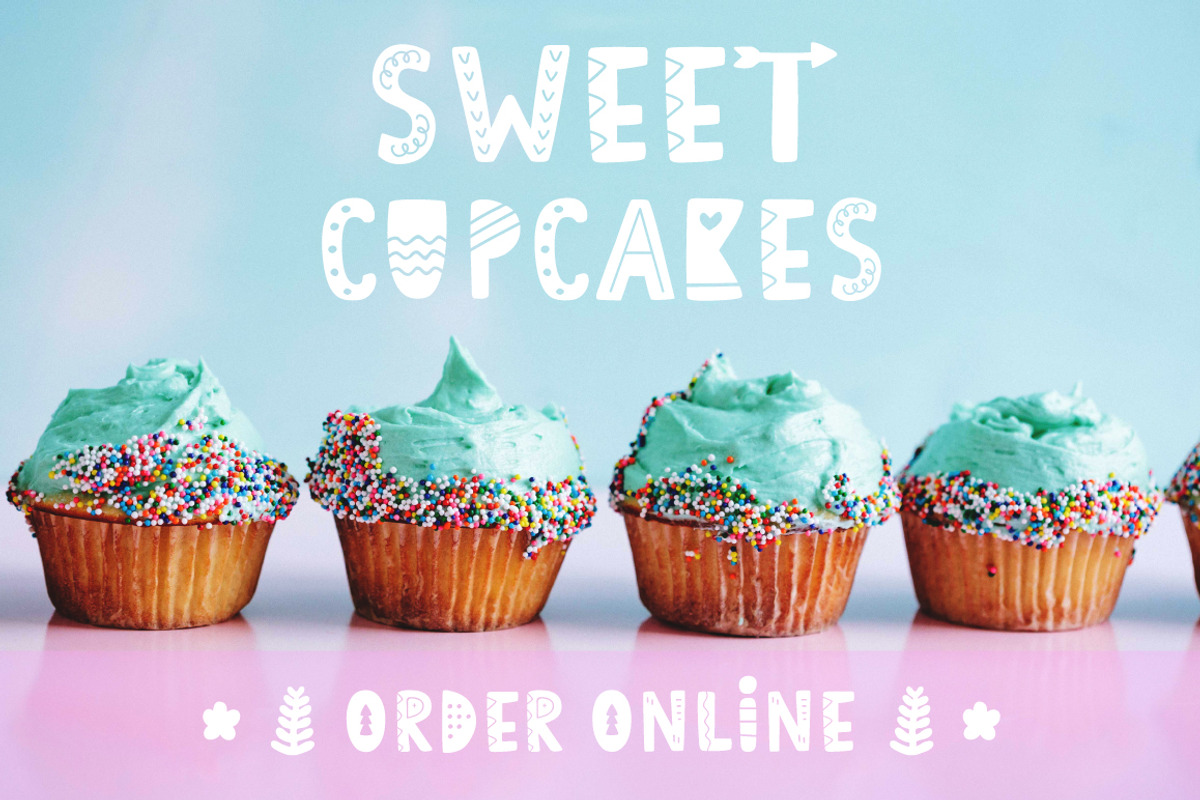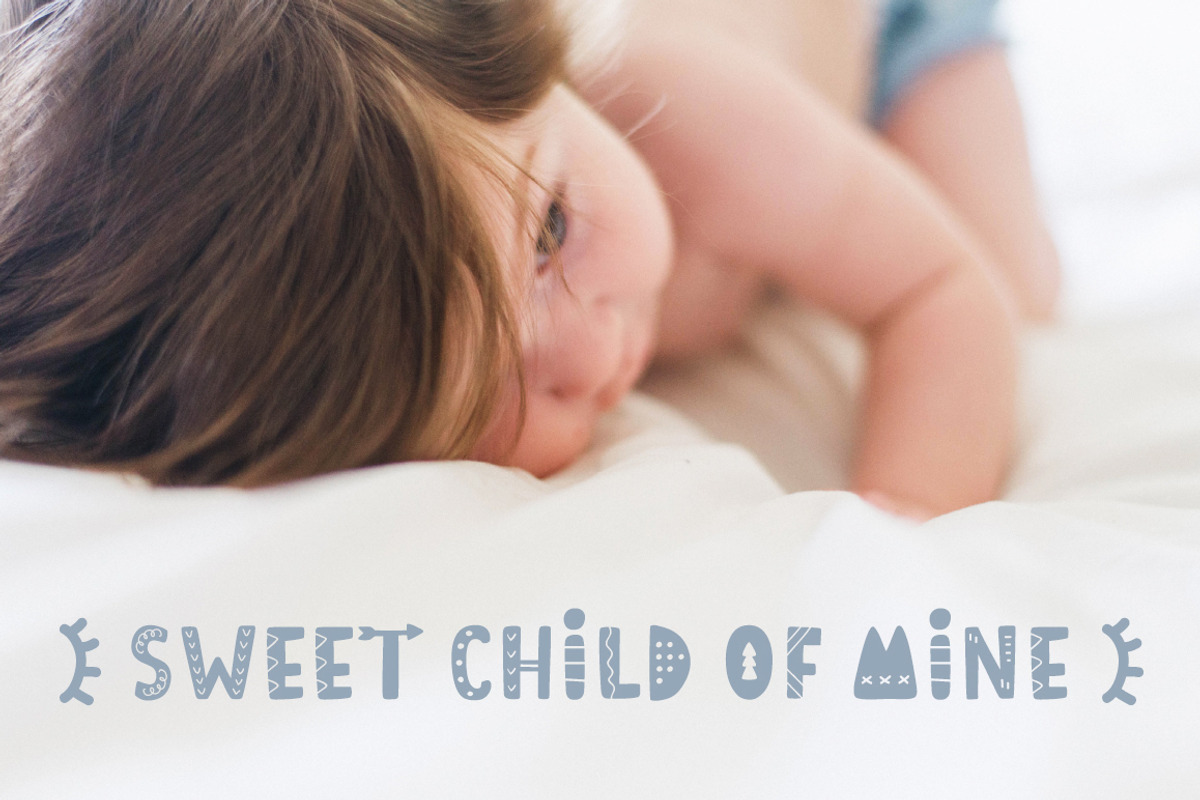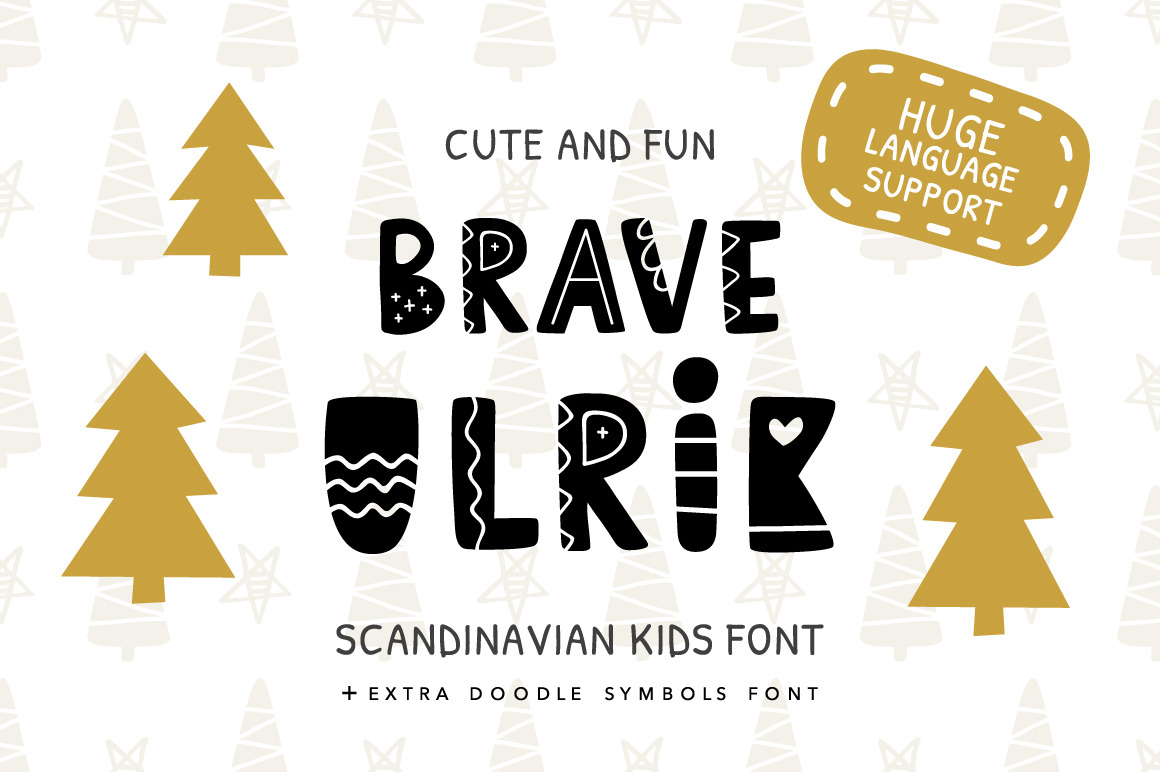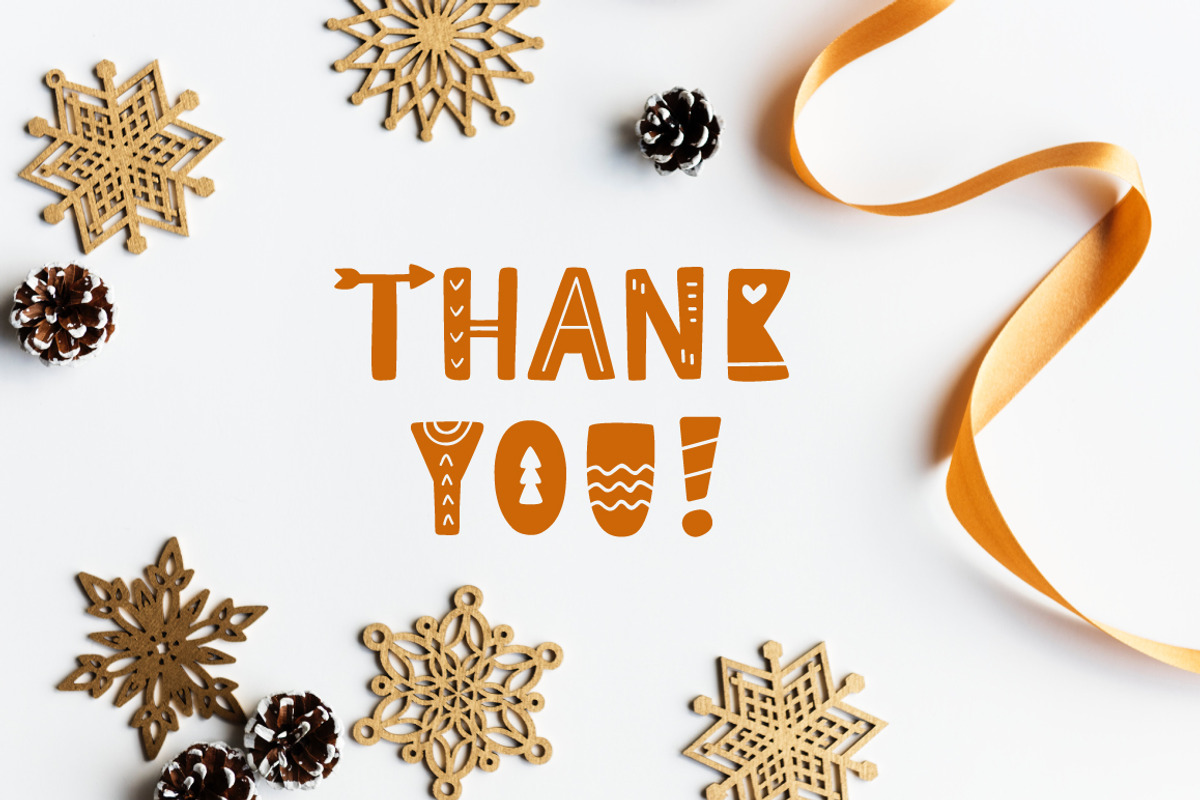
Brave Ulrik Scandinavian Font
Hey everyone! I'm glad to introduce you new Brave Ulrik Scandinavian Font!
Brave Ulrik font family is perfect for invitation cards, logos, kids T-shirt print, books, mugs, web, cover design. Mix letters, numbers and doodle symbols and use it for your unique projects in most languages!
Brave Ulrik includes Decorative Kids Scandinavian Font and Fun Doodle Symbols Font. Brave Ulrik font includes CAPS only but It has smaller version for lower case too. It has numbers, accents, special characters and really HUGE language support. Here are the most popular languages (to see all languages please click on screenshots):
- Afrikaans, Albanian, Bosnian, Catalan, Czech, Croatian, Danish, Dutch, English, Estonian, Filipino, Finnish, French, German, Hawaiian, Hungarian, Icelandic, Indonesian, Irish, Italian, Latvian, Lithuanian, Luxembourgish, Norwegian, Polish, Portuguese, Romanian, Slovak, Slovenian, Spanish, Swedish, Swiss German, Turkish